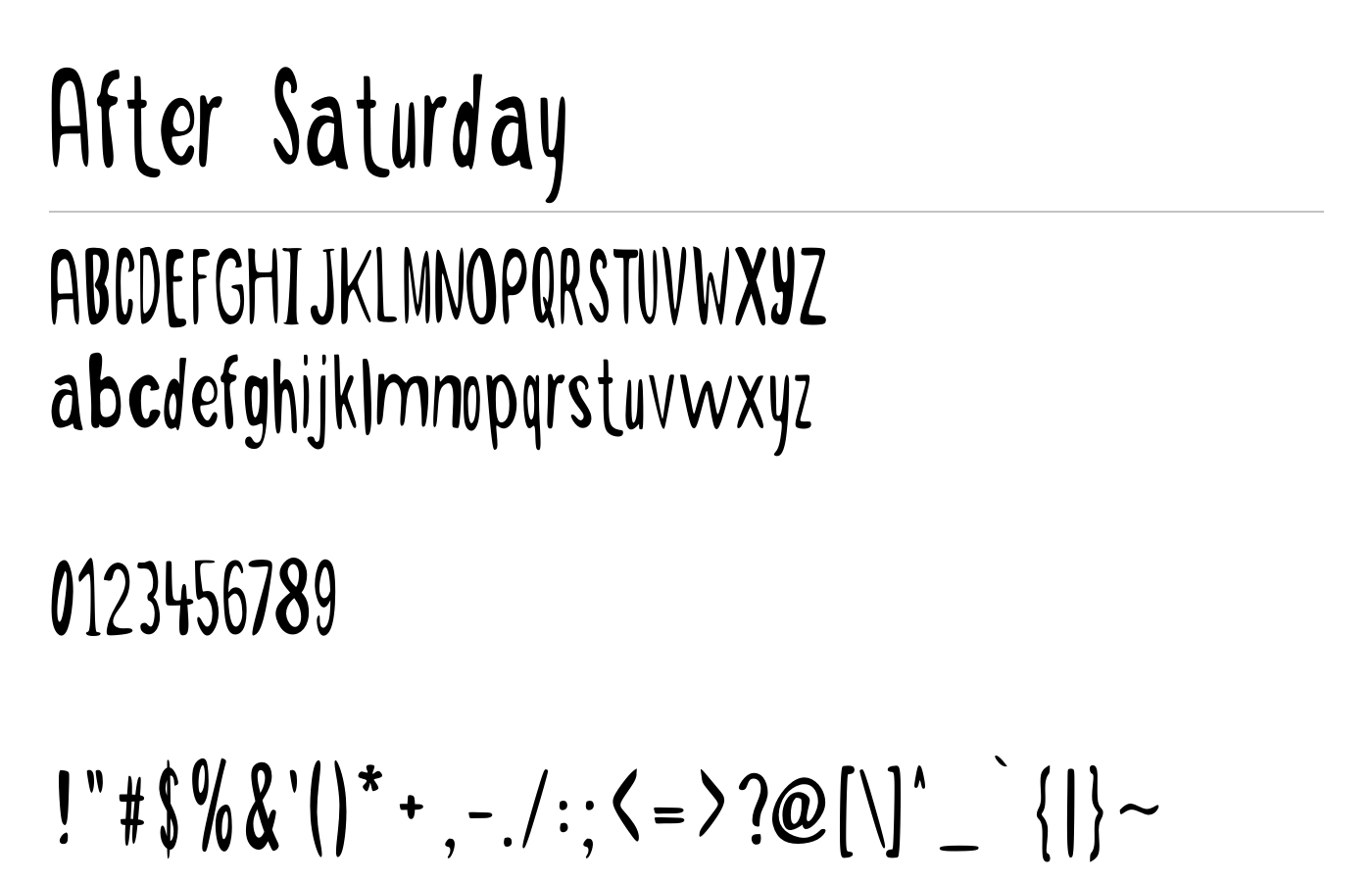
After Saturday is a playful and casual sans serif font with a tall, narrow structure and slightly irregular strokes that give it a hand-drawn feel. Its light weight and whimsical letterforms make it perfect for fun, informal designs like children’s books, personal branding, and creative headlines seeking a friendly, approachable vibe. This font works well where a unique, quirky personality is desired without sacrificing readability.
After Saturday Font
About After Saturday Font
| Font family | After Saturday Font |
| Designer | Kurnia Setyadi |